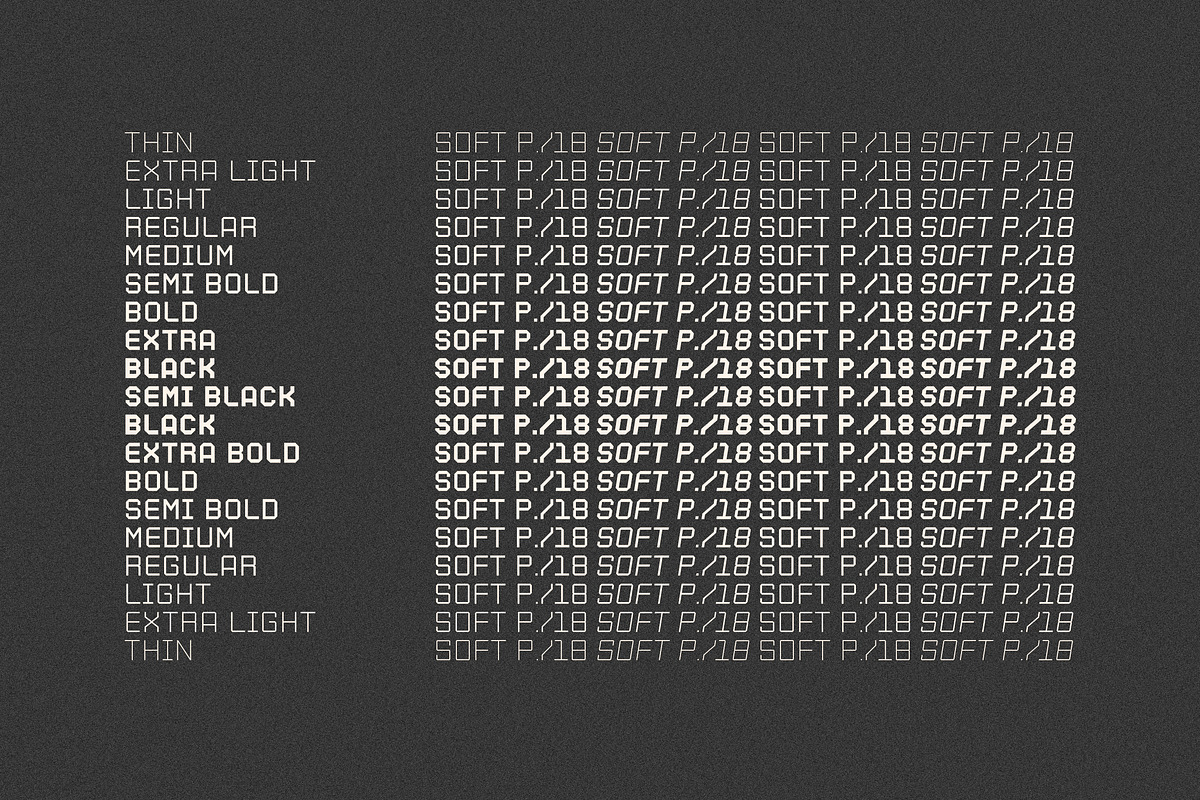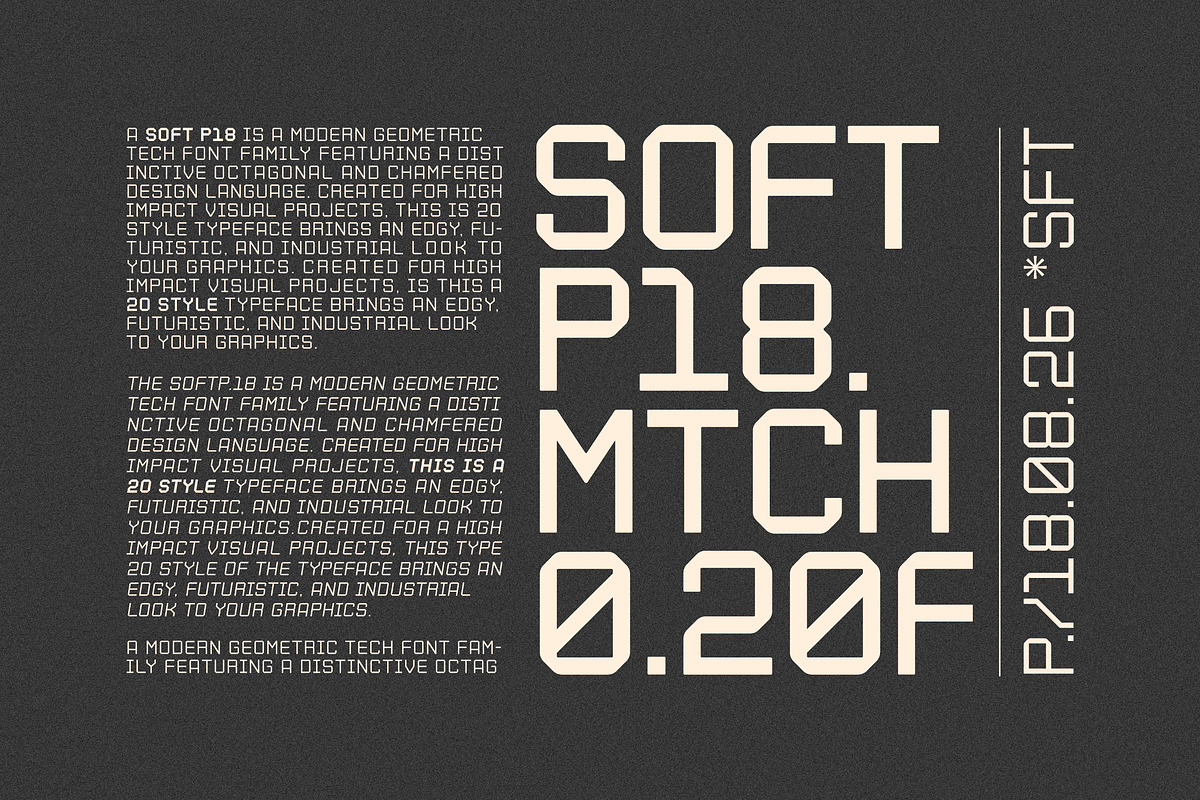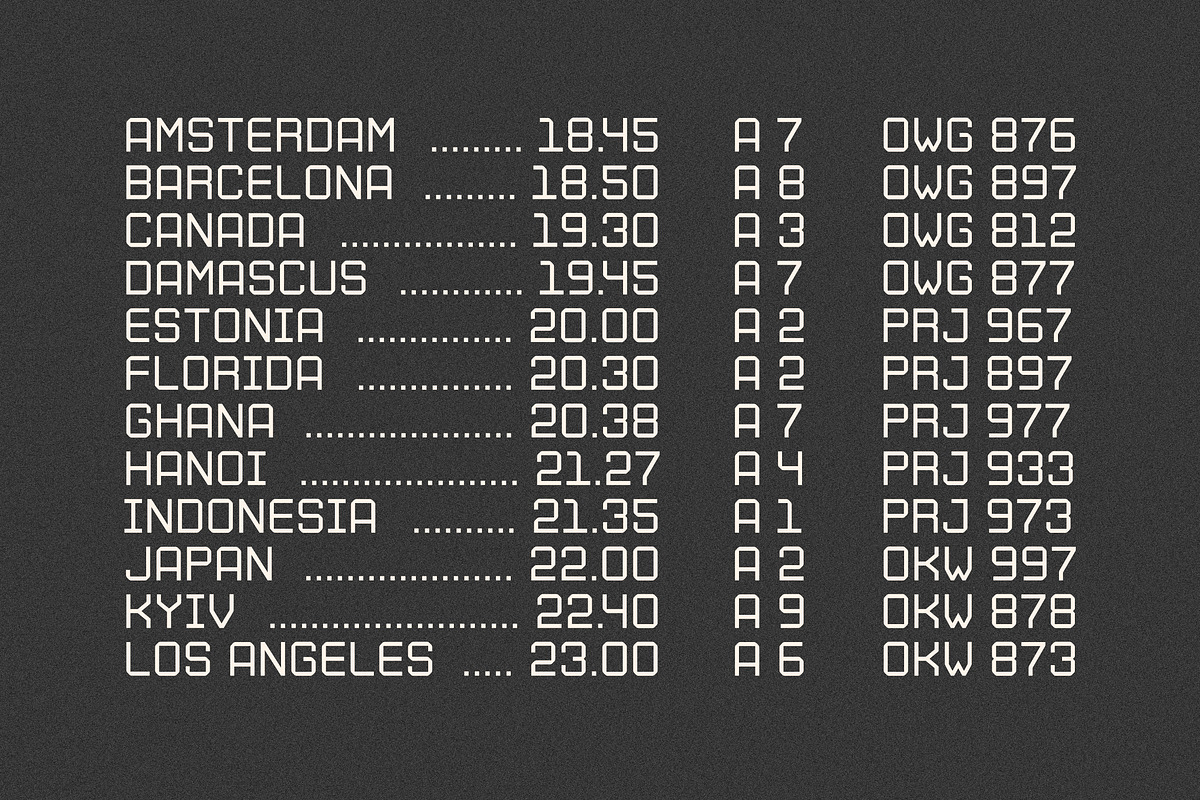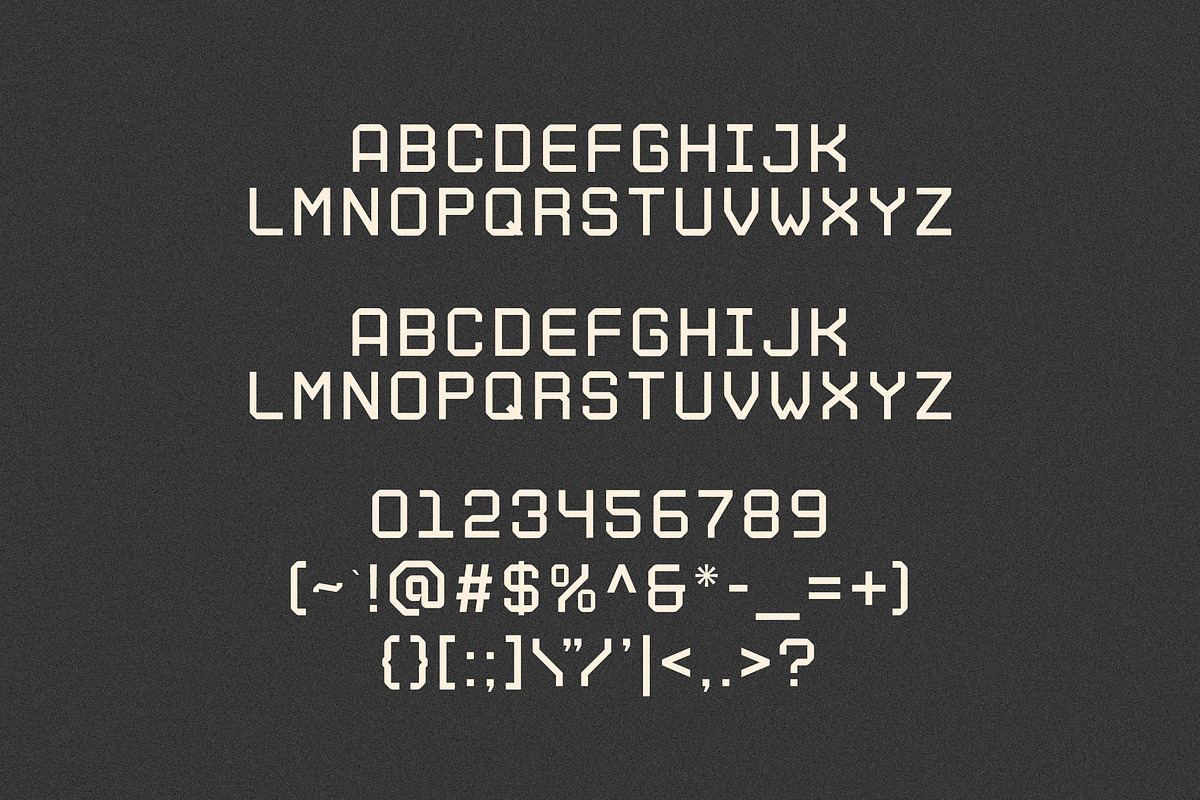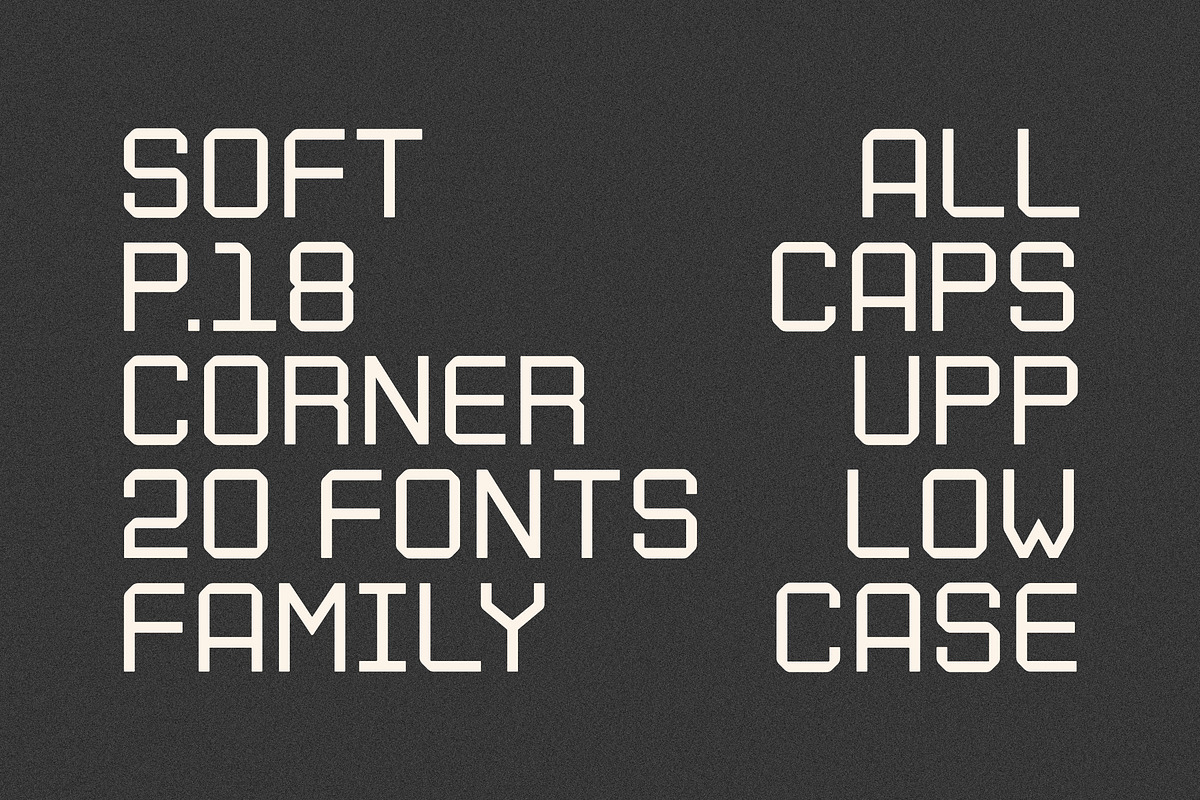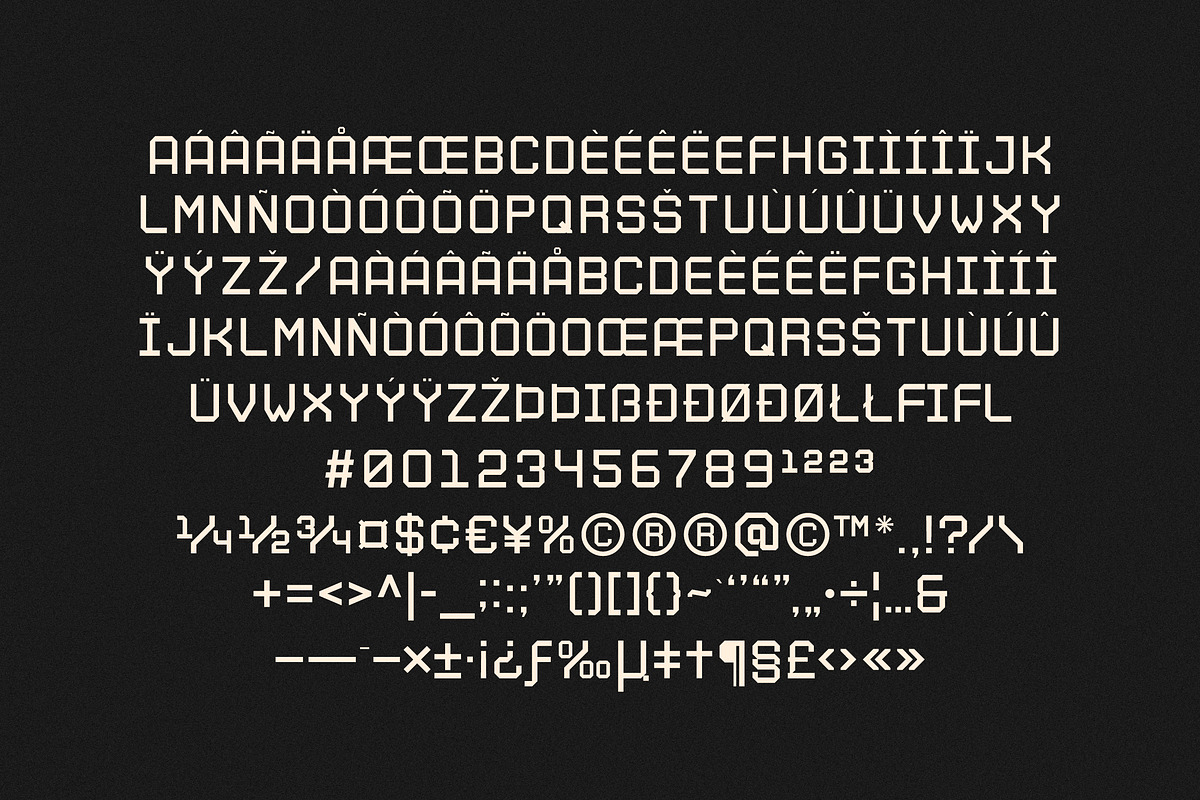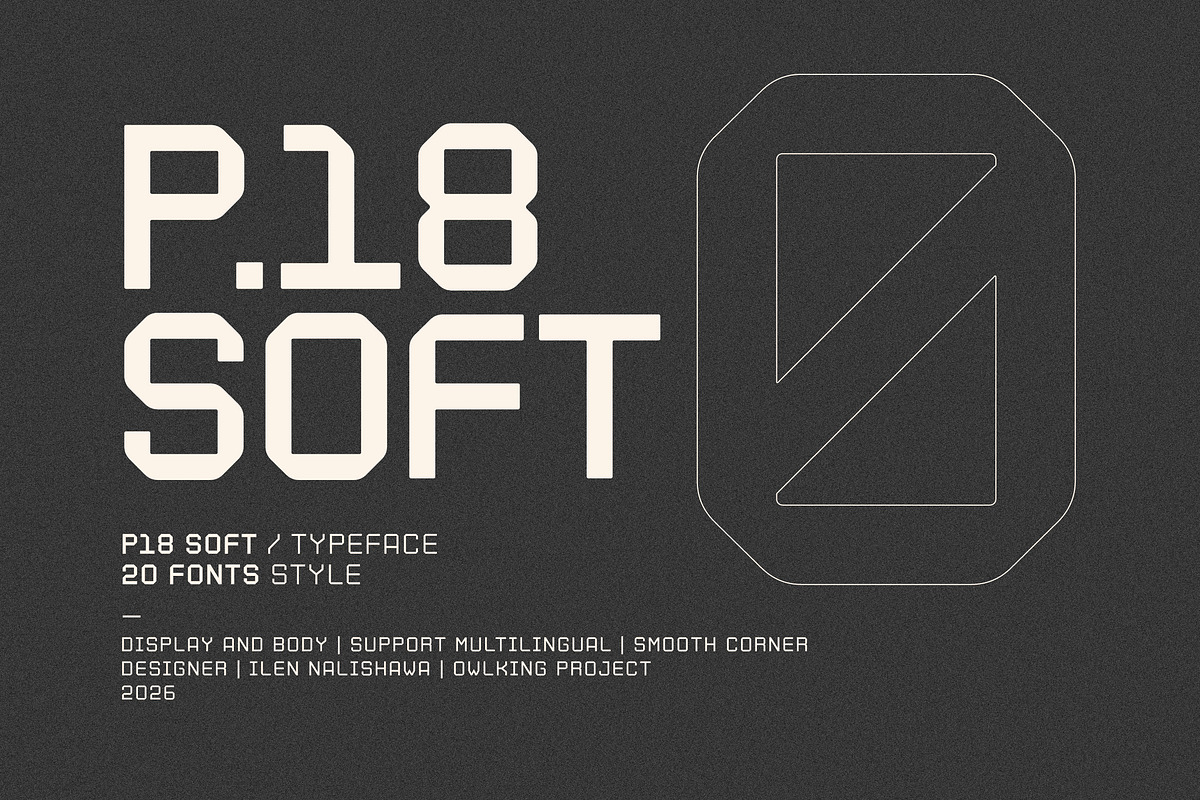
P18 Soft
P18 Soft is a modern rounded tech font family designed with smooth octagonal geometry. Combining an industrial aesthetic with soft, rounded edges, this typeface offers maximum readability and a futuristic visual feel for digital projects.
MAIN FEATURES :
20 Font Styles (Complete Family Set)
Uppercase, Lowercase, Numerals, and Symbols
Optimized for Display Headlines & Body Text
Smooth Corner Finish (Friendly Industrial Style)
Full Multilingual Accent Support